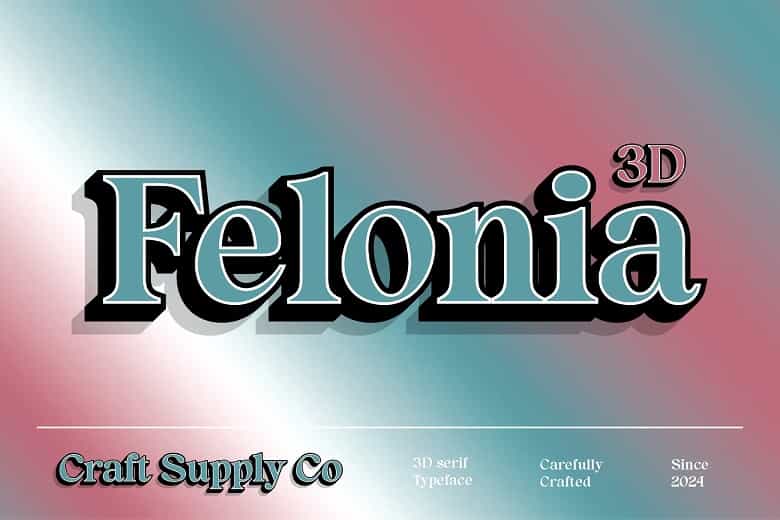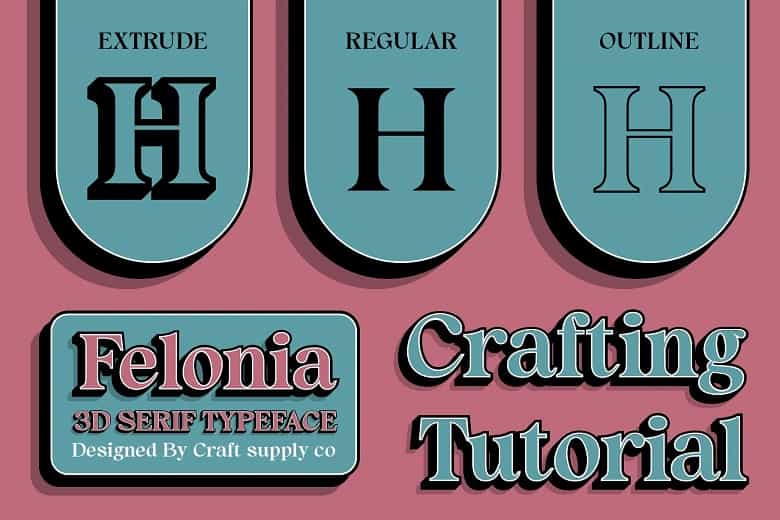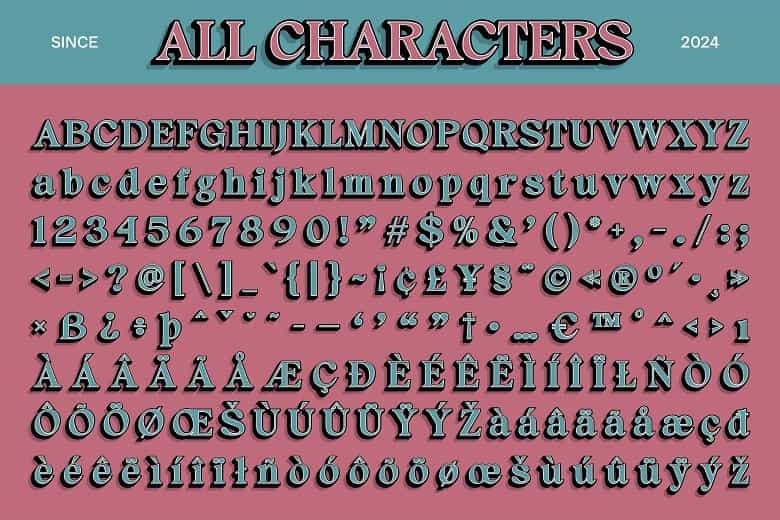
Felonia 3D is a quintessential serif font with a touch of the old-school feel it has been given a 3D treatment. Its design gives a classic touch to your projects, and the aspects of the modern dimensionality helps to make your project interesting and eye-catching.